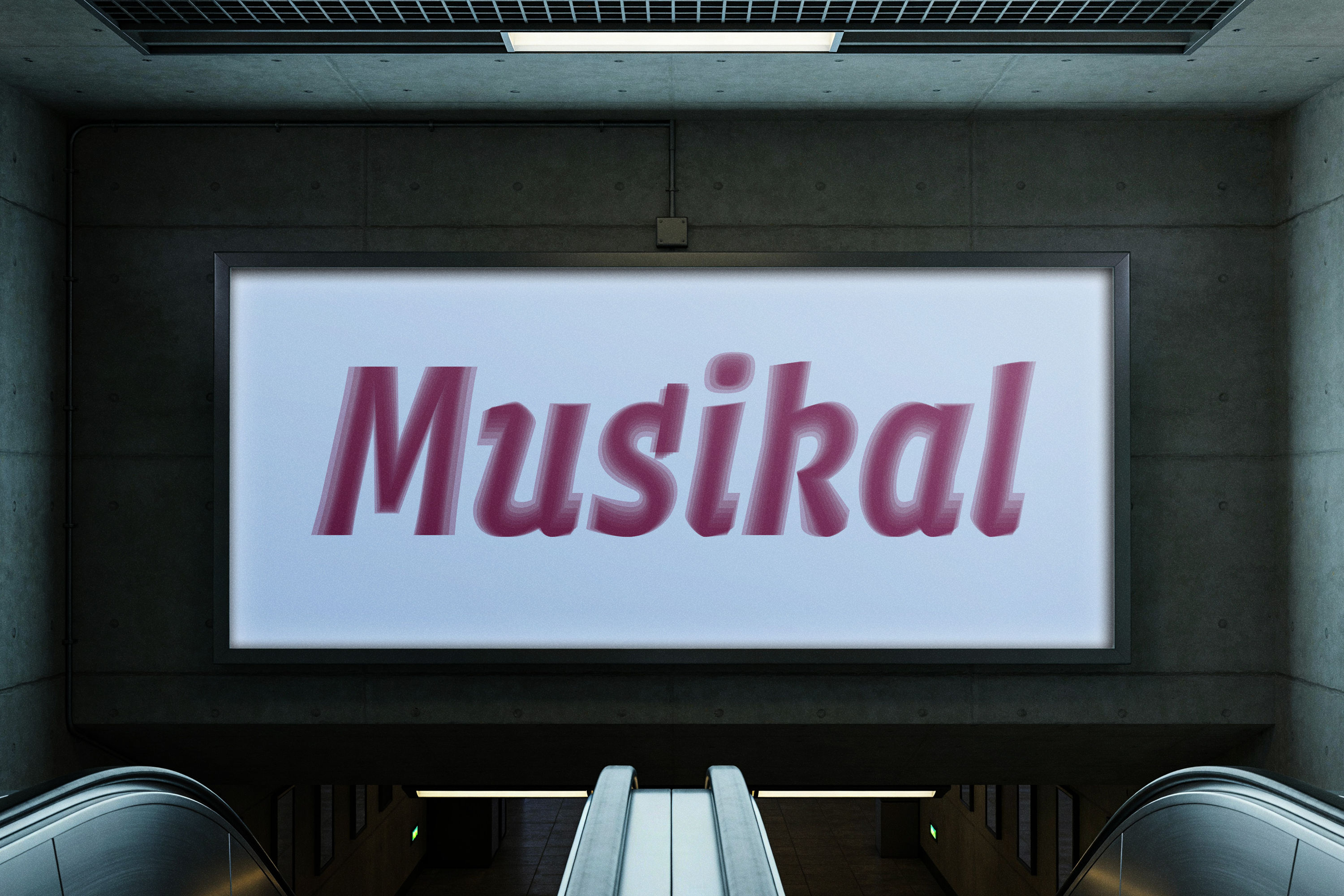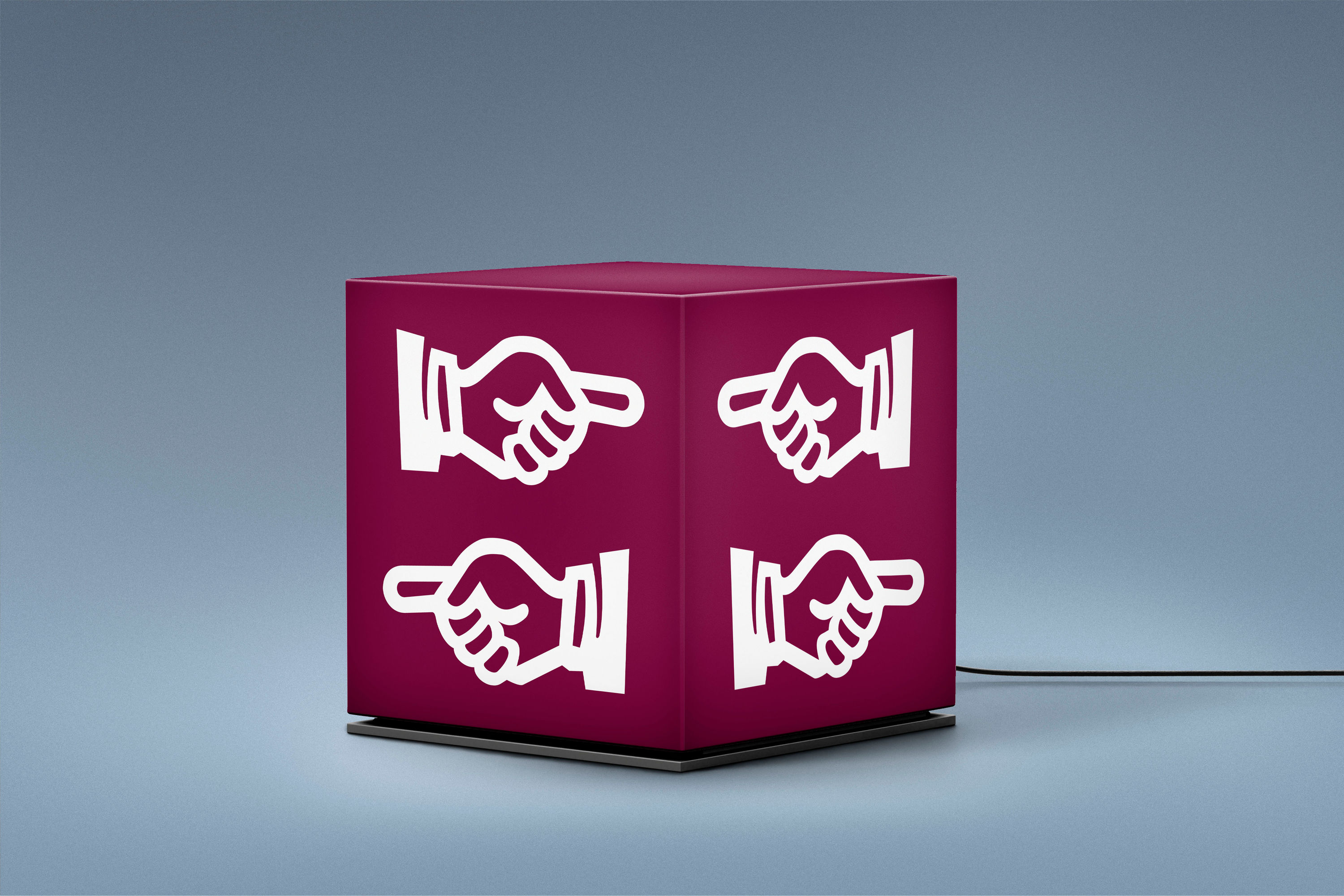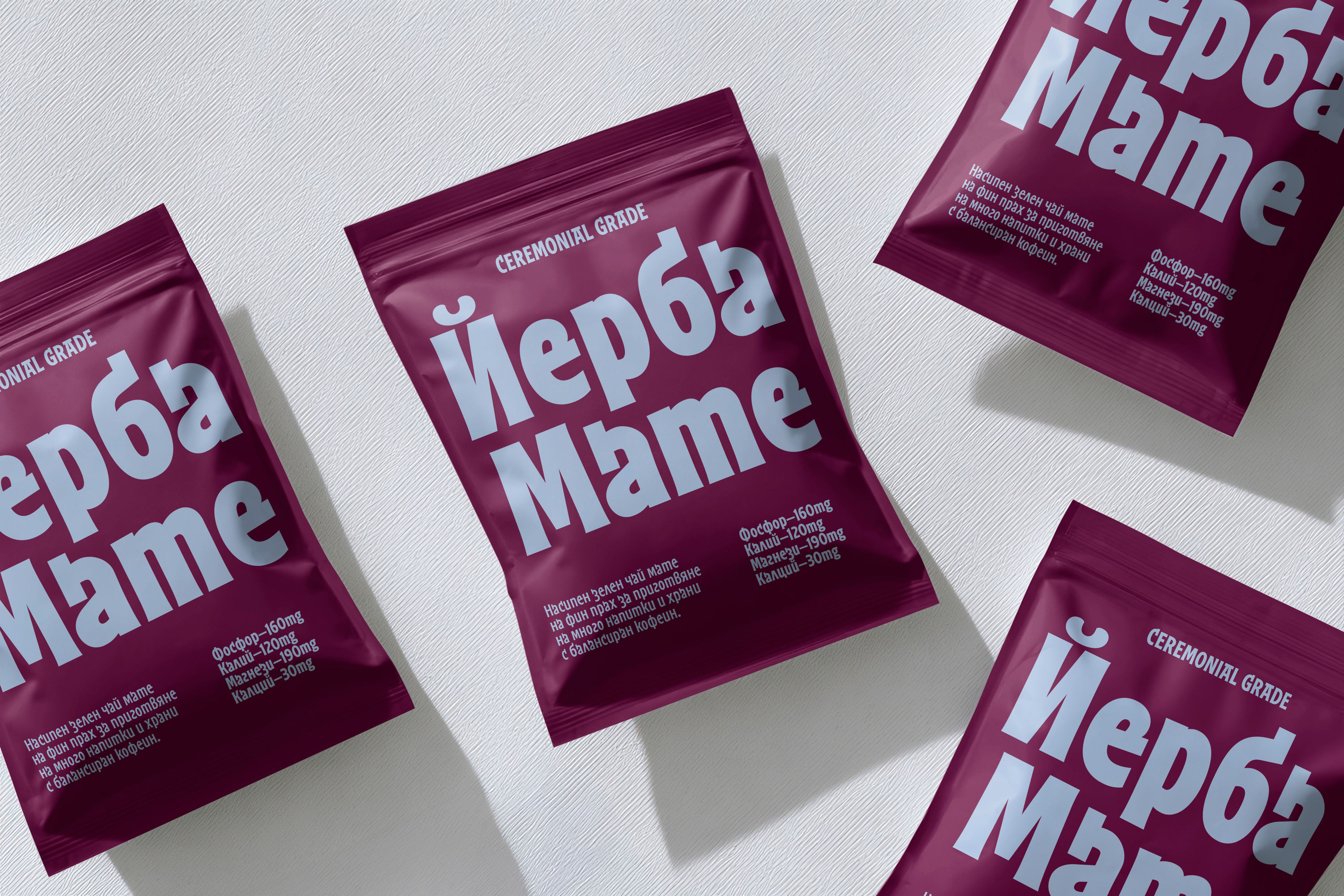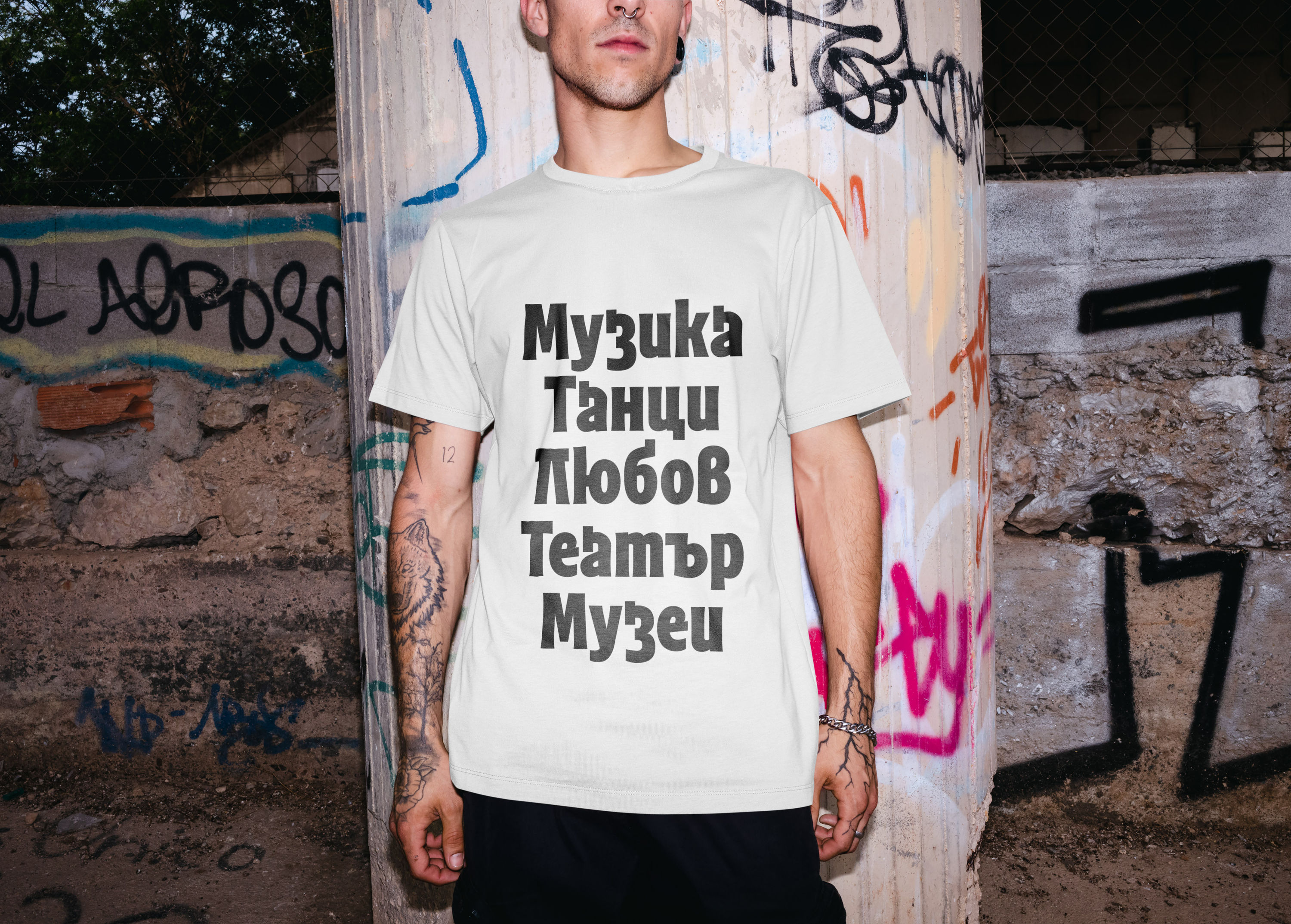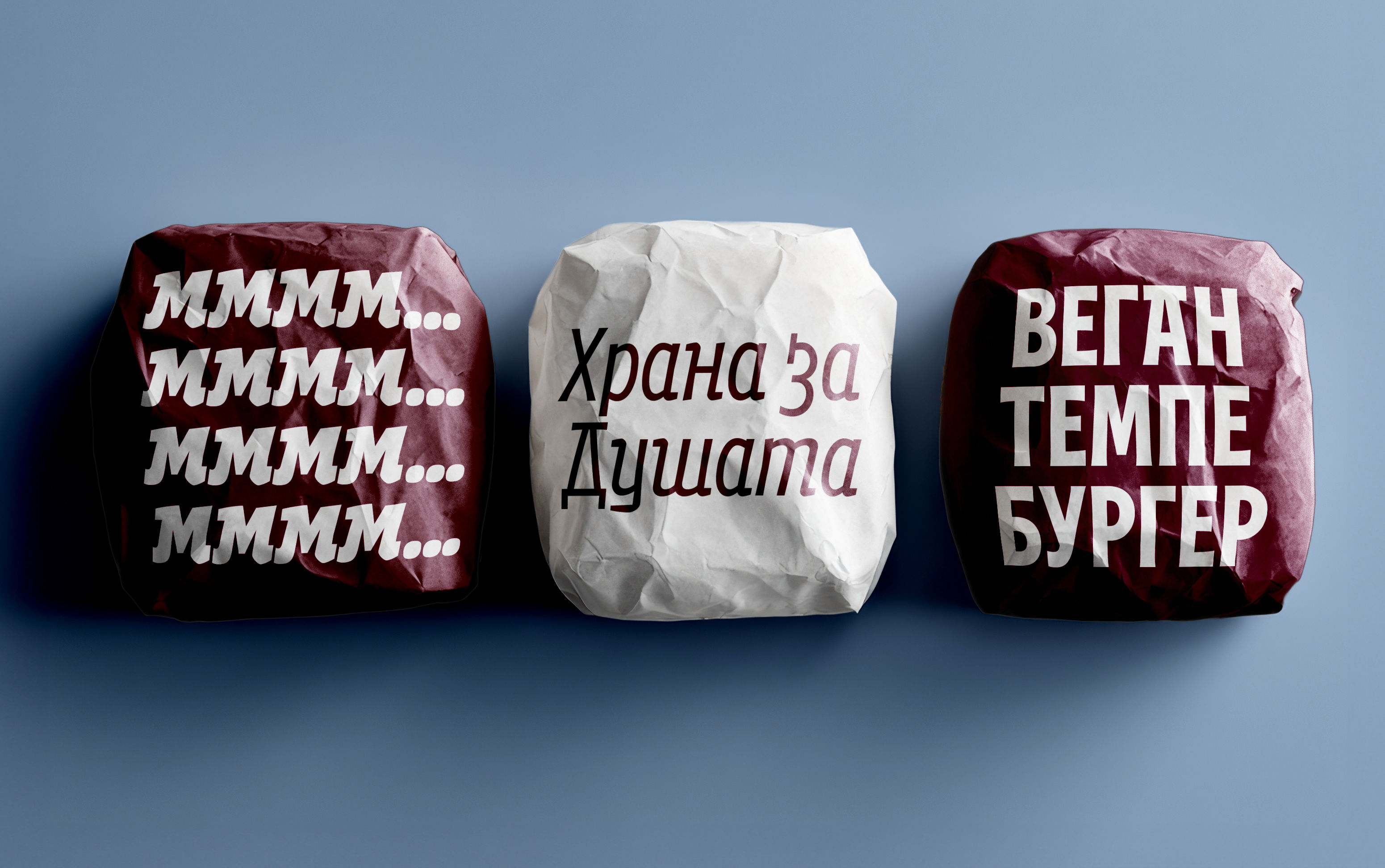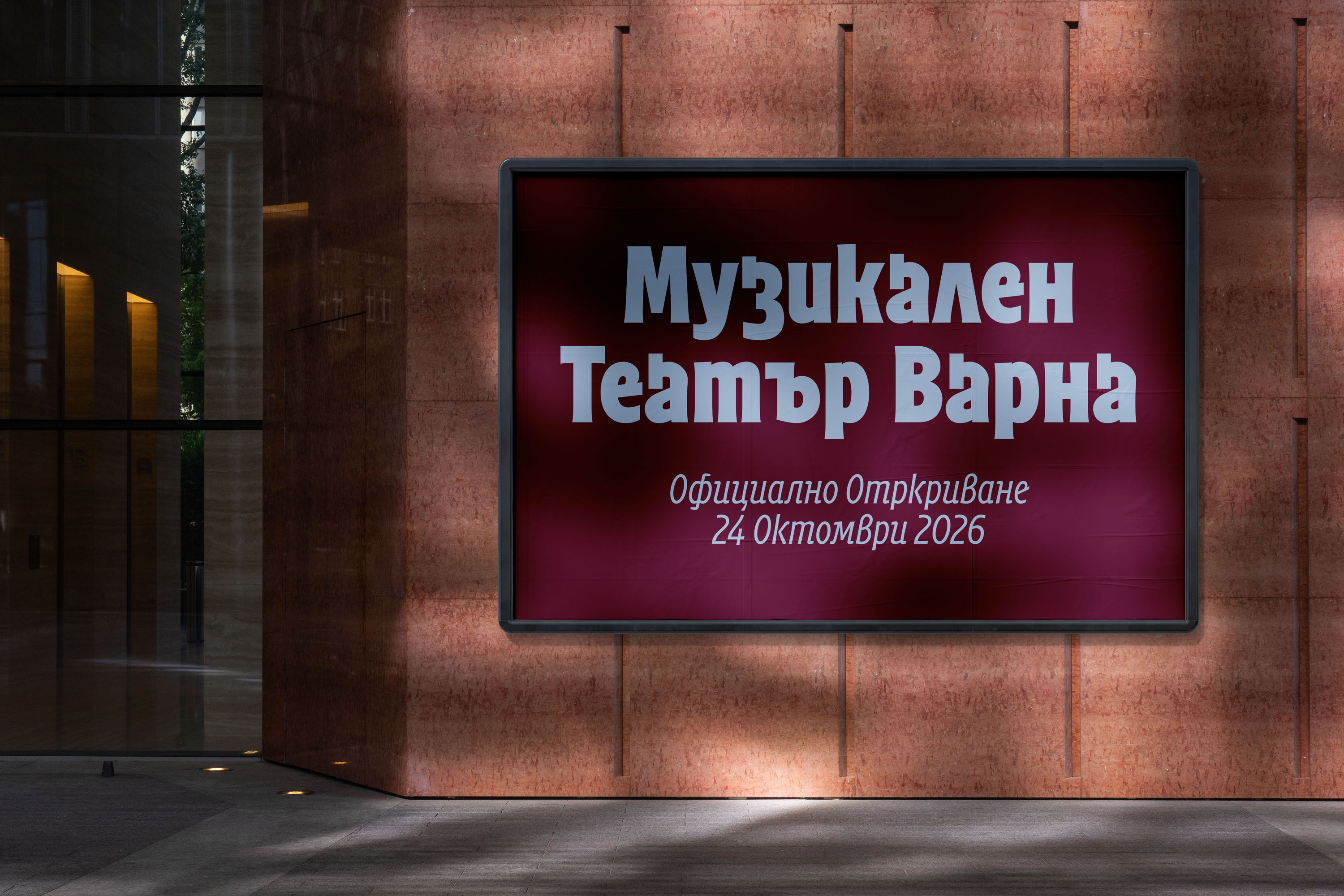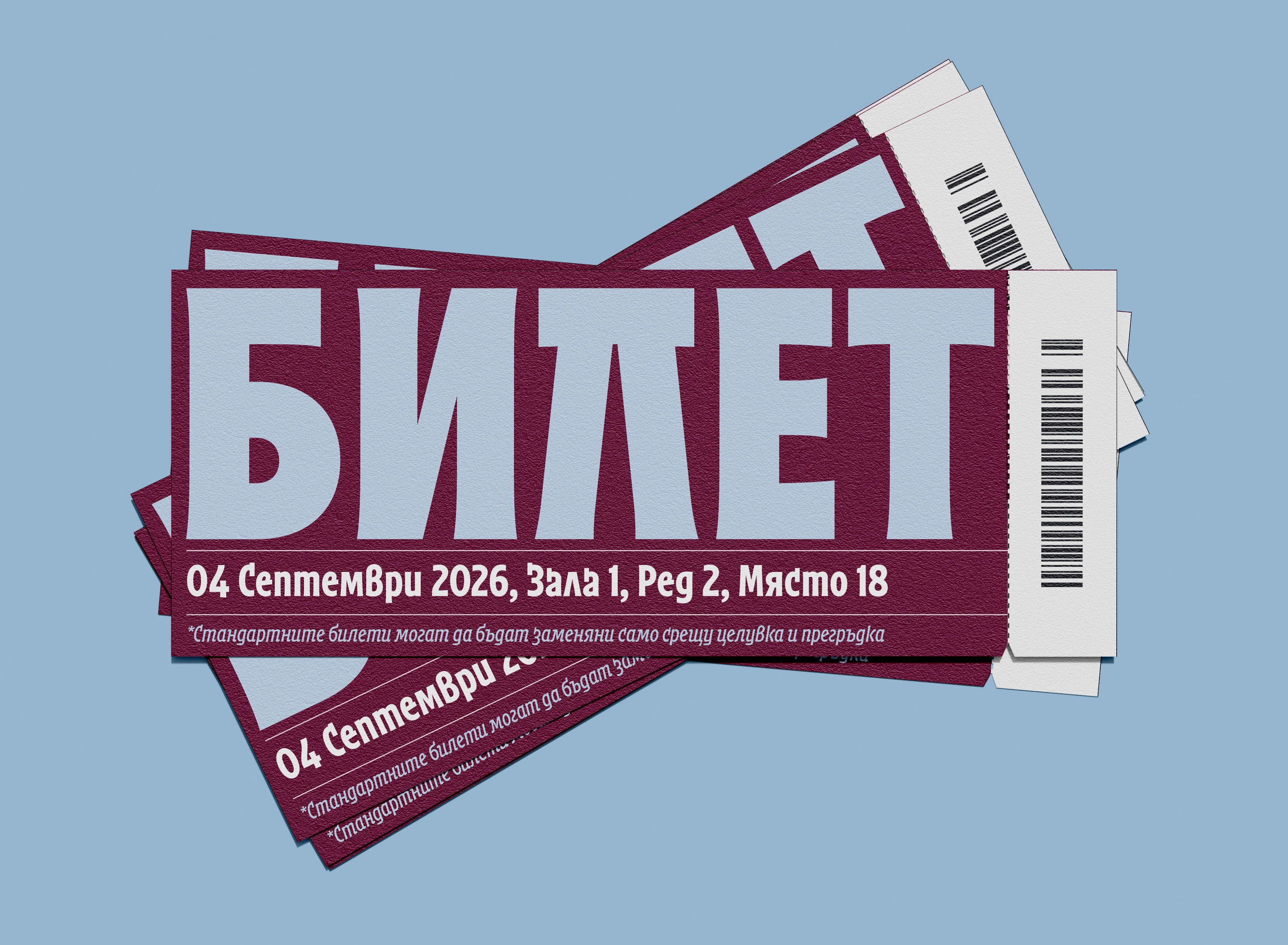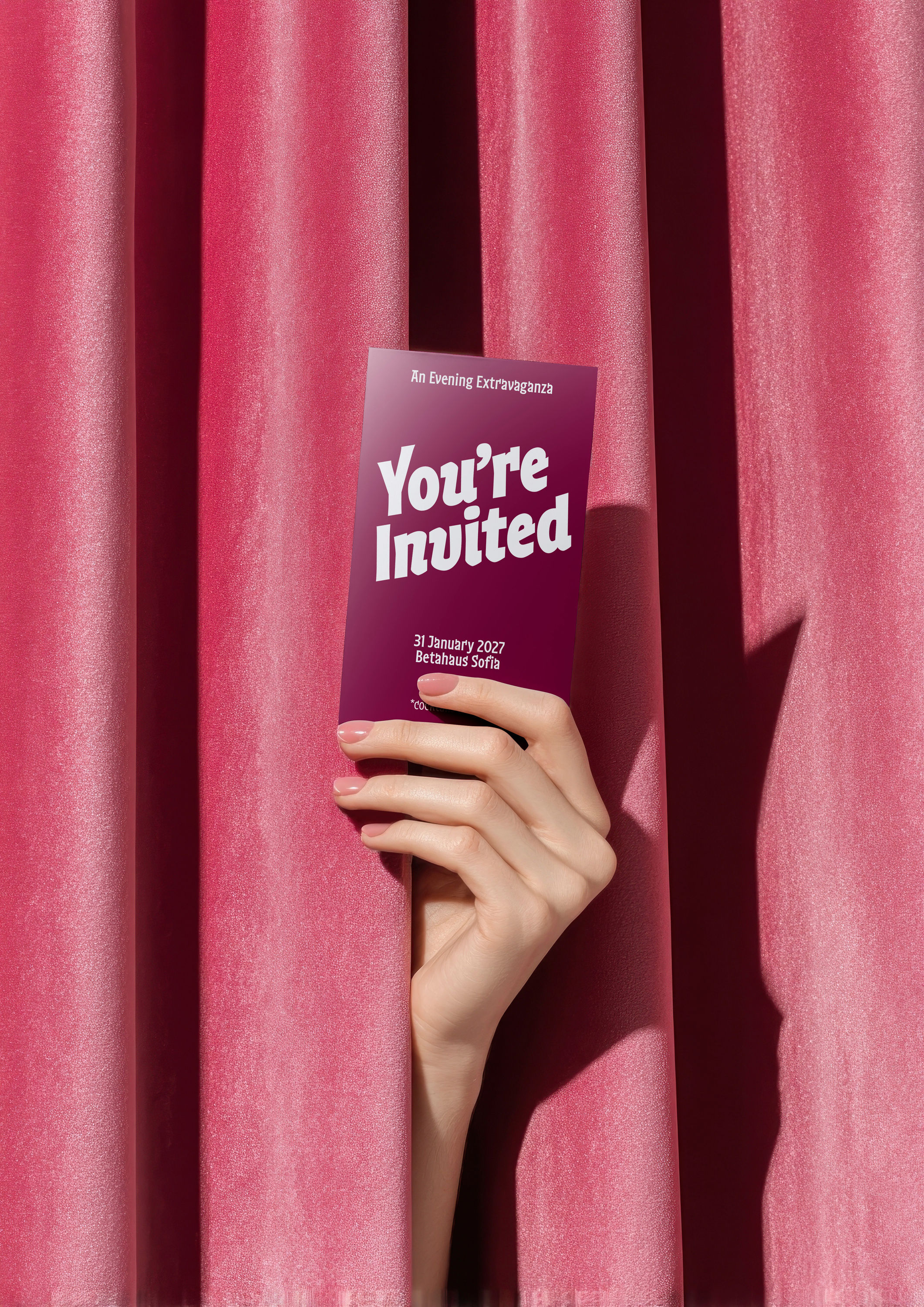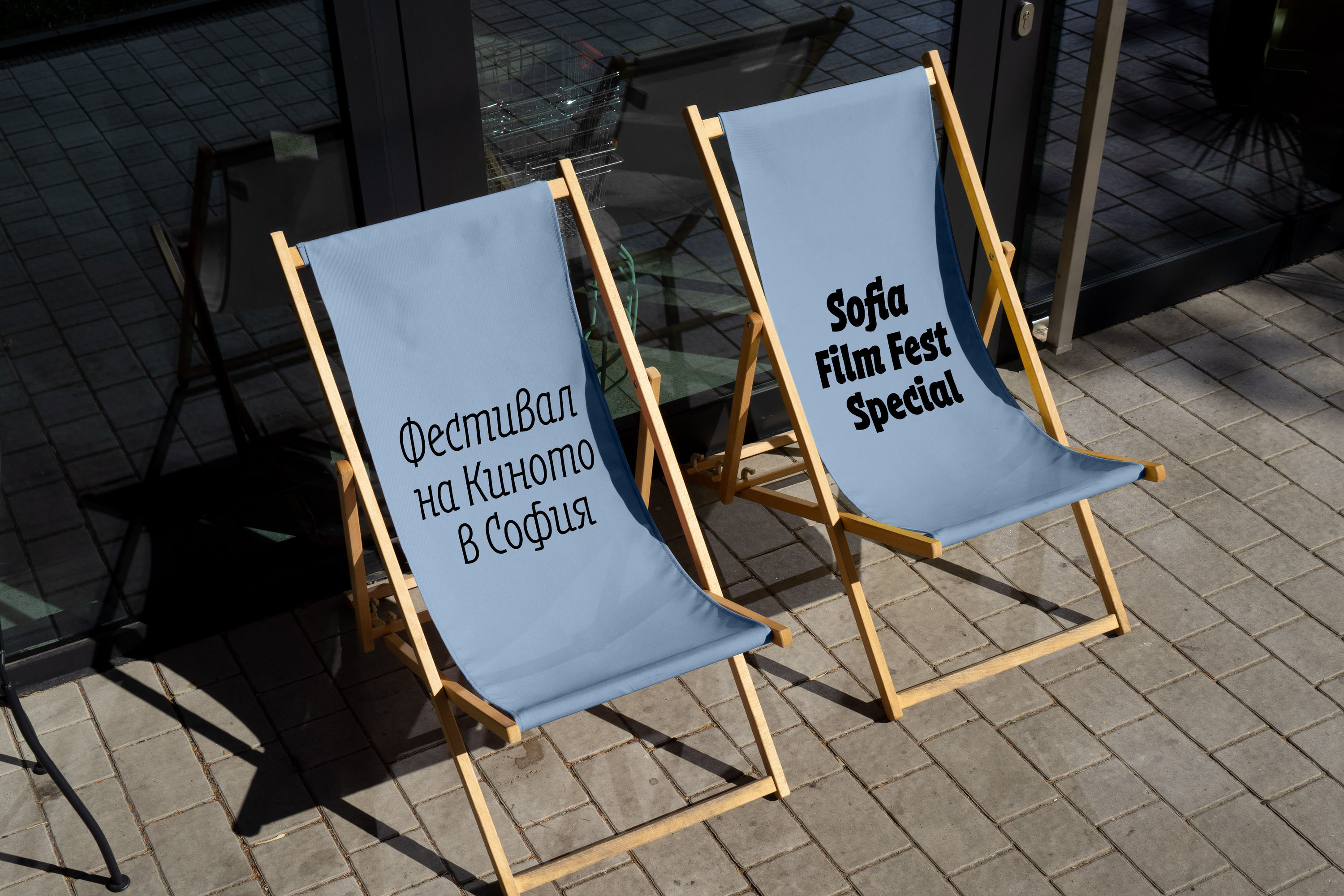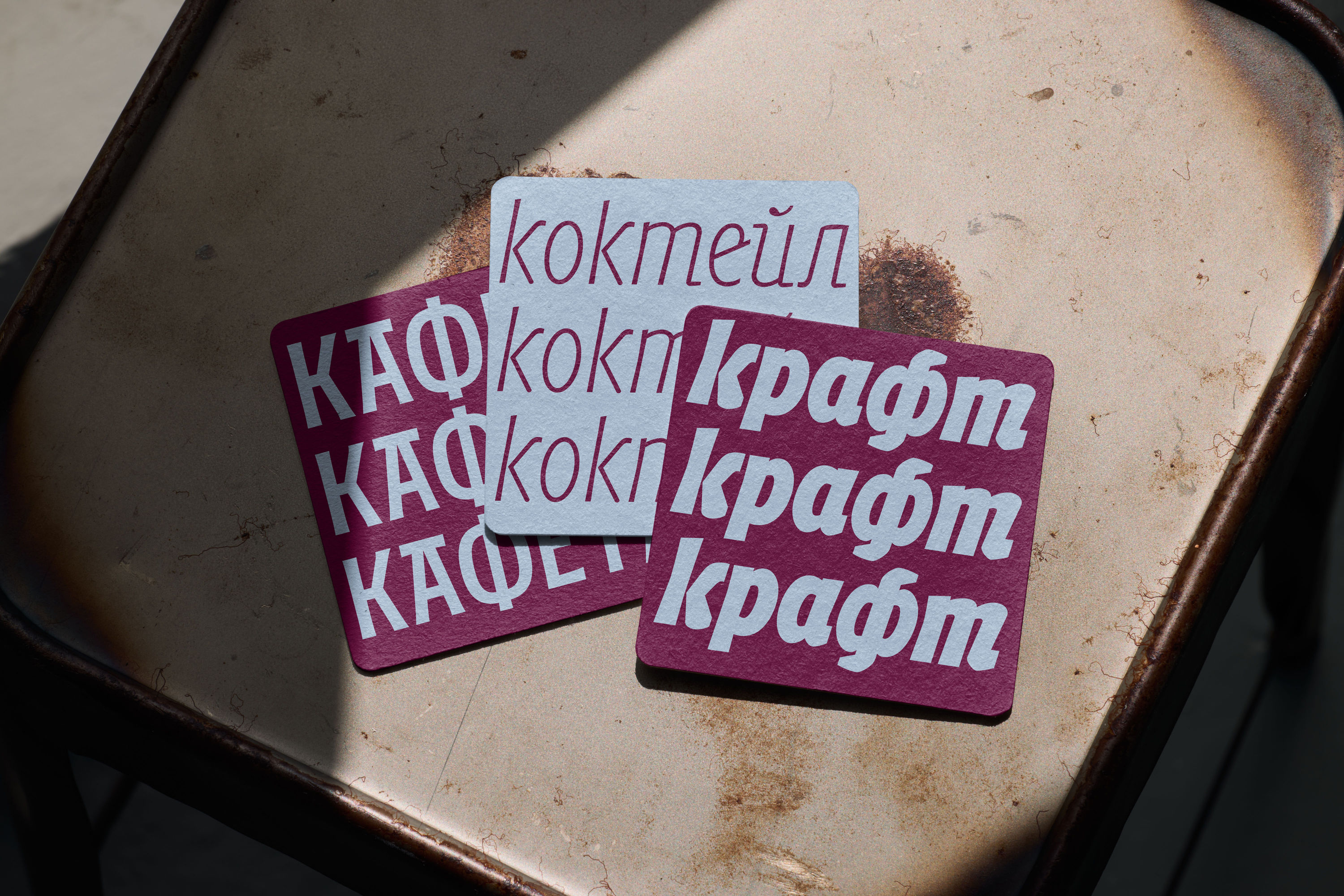
Musikal
Musikal is a playful display typeface inspired by the expressive spirit of late 19th-century ornamented lettering, reinterpreted through a softer and more contemporary lens. Drawing from the condensed proportions and decorative energy of historical references such as Obelisk by Herman Ihlenburg, Musikal replaces rigid geometry with more organic forms and a subtle connection to the stroke of a pen. Tapered terminals and simplified ornamental details give the typeface a distinctive rhythm—expressive and theatrical, yet approachable and full of charm.
Designed primarily for display use, Musikal embraces its condensed structure and unconventional details with confidence. Prominent downstrokes and ornamental gestures create a striking texture in headlines while maintaining a surprising level of legibility. The family includes multiple stylistic sets ranging from simplified alternates for longer text settings to more extravagant decorative forms, allowing the typeface to shift between restrained and highly expressive moods and inviting designers to explore this playful typographic vocabulary.
Musikal is designed by Fred Wiltshire, with Krista Radoeva as Cyrillic consultant and Gerry Leonidas as Greek consultant.
Consultant
Krista Radoeva (Cyrillic)
Consultant
Gerry Leonidas (Greek)
Scripts
Latin, Cyrillic, Greek
Default 1
Exaggerated Forms 1 SS02
Default 2
Exaggerated Forms 2 SS03
Default Cyrillic
Bulgarian Cyrillic SS06
Default Cyrillic
Serbian Cyrillic SS07